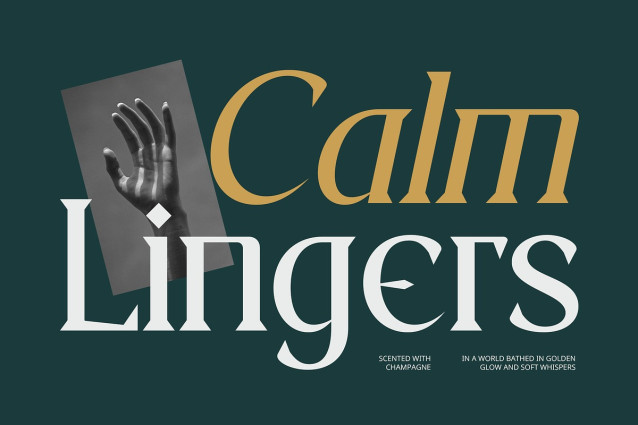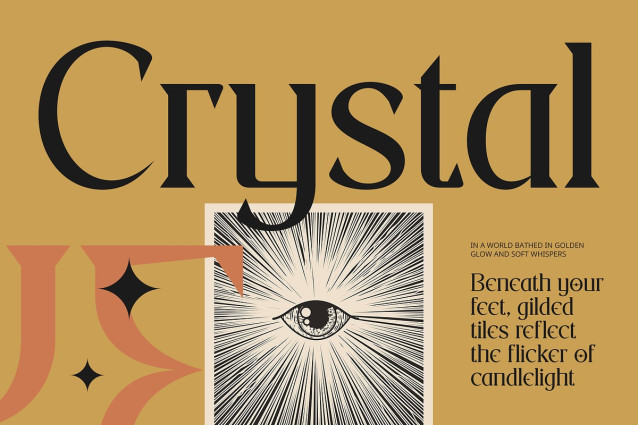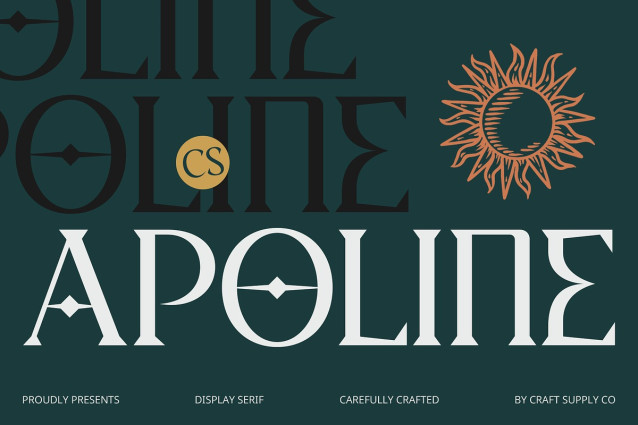
CS Apoline Font
CS Apoline Font is a refined display serif font that gracefully merges classic beauty with a contemporary spirit. Its clean, slender letterforms and delicate serif accents create a visual language that feels both timeless and stylish, offering a perfect balance between tradition and modernity.
Designed for Sophisticated Storytelling With its elegant structure and subtle charm, CS Apoline is ideal for editorial layouts, high-end branding, fashion labels, and visual identities that demand a chic, graceful presence. Each character flows with thoughtful proportions, enhancing both aesthetics and legibility.
Versatile and Stylish Whether featured in magazine headlines, brand logos, or luxury packaging, CS Apoline delivers a polished, elevated look that aligns with modern tastes while paying homage to classical typography. It brings just the right amount of personality—soft and confident, never overpowering.
Ideal for Today’s Elegant Designs Use CS Apoline to express a sophisticated, feminine, and artistic tone in your projects. It’s perfect for designers who want to evoke elegance and grace while maintaining a clean and fashionable aesthetic. CS Apoline is not just beautiful—it’s well-balanced and functional, combining aesthetic sophistication with everyday usability. Whether you’re building a luxury brand, crafting a thoughtful editorial spread, or designing for a modern boutique, this font brings a light, stylish, and graceful presence to every project.